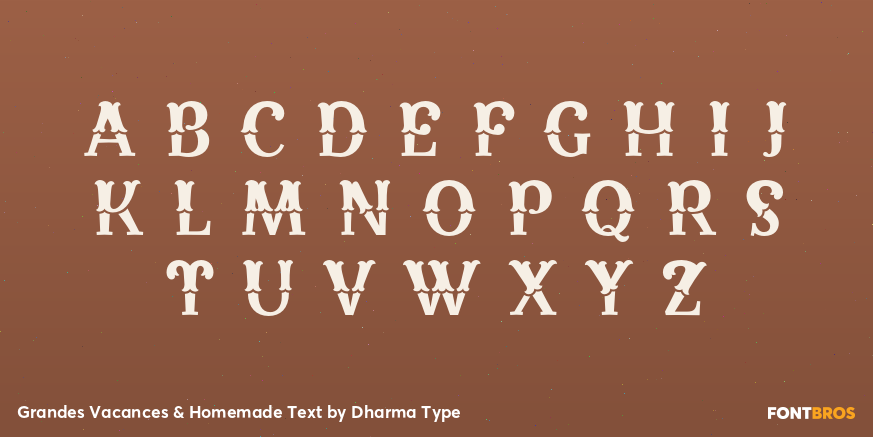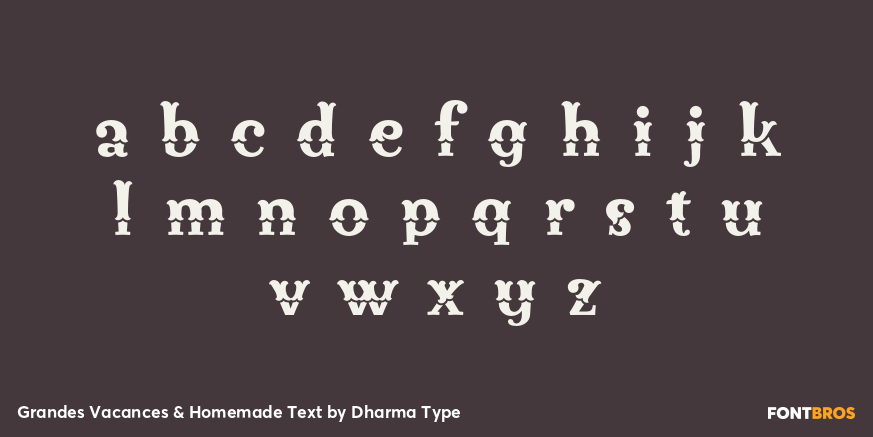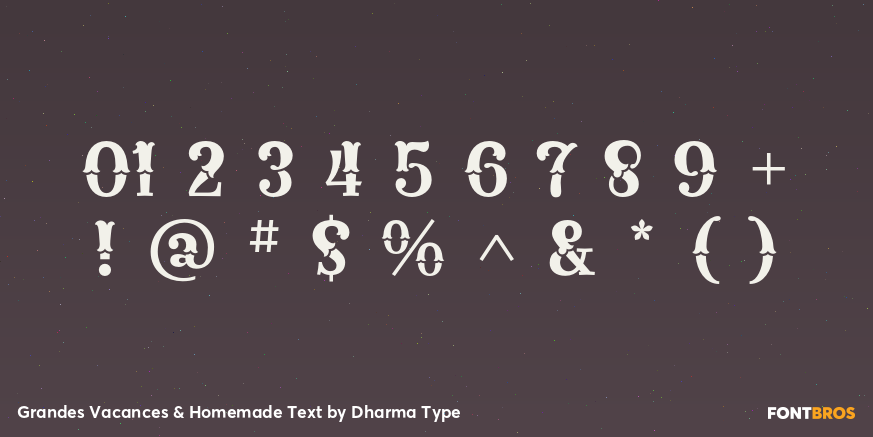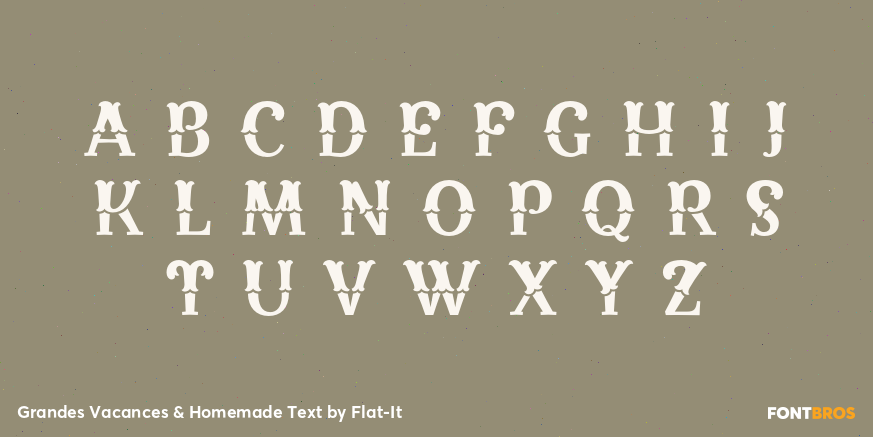
Grandes Vacances & Homemade Text
Font Bundle by Dharma Type
This woodtype is the one of the most unique wildwest, tuscan type. No other woodtype or tuscan decorative is more cute and sweeter than this family.
Homemade Text font is ready to uses in conjunction with this family.
Grandes Vacances
Grandes Vacances Deux
Grandes Vacances Une
Homemade Text